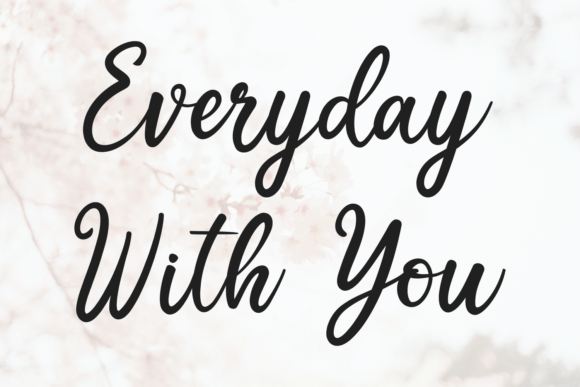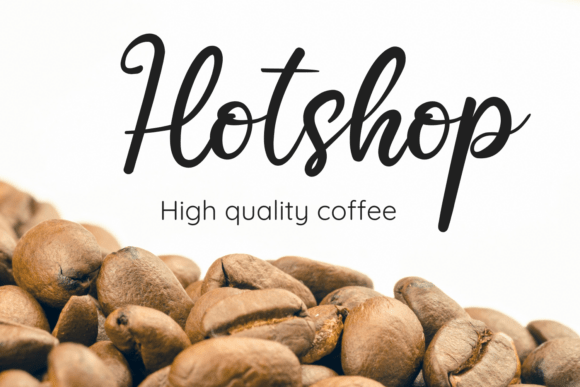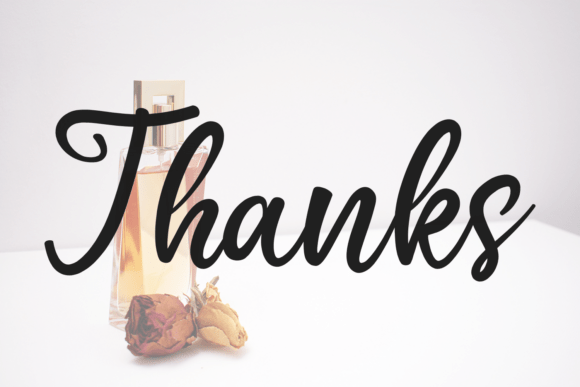
Introducing Avida Font: The Ultimate Modern Script Font for Elegant Designs
Are you looking for a font that exudes elegance, sophistication, and modern charm? Look no further than Avida, a beautifully crafted modern script font that is sure to elevate your design projects to new heights. With its smooth, flowing strokes and dynamic contrast between thick and thin lines, Avida is the perfect choice for designers and crafters who want to add a refined and luxurious feel to their work.
A Font Designed with Meticulous Attention to Detail
Avida is a font that has been designed with meticulous attention to detail, making it a true masterpiece of typographic design. The font features smooth, flowing strokes that are perfect for creating elegant and sophisticated designs. The dynamic contrast between thick and thin lines adds a level of depth and dimensionality to the font, making it perfect for a wide range of design applications.
Avida is a versatile font that is perfect for a wide range of design projects, including branding, packaging, product labels, wedding stationery, t-shirt designs, and high-end logo projects. Whether you’re working on a luxury brand identity or a creative design project, Avida is the perfect choice for creating designs that stand out with class and confidence.
Seamless Adaptation to Digital and Print Applications
One of the key benefits of Avida is its ability to adapt seamlessly to both digital and print applications. The font’s versatile letterforms make it perfect for use in a wide range of design projects, from business cards and brochures to websites and social media graphics. And with its clean, professional look, Avida is suitable for use in both formal and informal design projects.
Inspired by Modern Calligraphy
Avida is inspired by modern calligraphy, which gives it a unique and elegant feel. The font’s smooth, flowing strokes and dynamic contrast between thick and thin lines are reminiscent of traditional calligraphy, but with a modern twist. This makes Avida perfect for designers and crafters who want to add a touch of elegance and sophistication to their designs.
Clean, Professional Look
Despite its elegant and sophisticated feel, Avida has a clean, professional look that makes it suitable for use in a wide range of design projects. The font’s clean lines and simple shapes make it easy to read and understand, even at small sizes. This makes Avida perfect for use in designs where clarity and legibility are essential.
Elegant Curves and Ligatures
Avida’s elegant curves and thoughtfully designed ligatures enhance the aesthetic appeal of the font, making each word look custom-made. The font’s ligatures are designed to create a seamless flow between letters, which adds to the overall elegance and sophistication of the font.
Elevate Your Next Creative Project
Whether you’re a designer, crafter, or DIY enthusiast, Avida is the perfect choice for your next creative project. With its elegant and sophisticated feel, Avida is sure to elevate your designs to new heights. So why settle for a ordinary font when you can use Avida to create designs that stand out with class and confidence?
Key Features of Avida Font
- Beautifully crafted modern script font
- Smooth, flowing strokes and dynamic contrast between thick and thin lines
- Perfect for branding, packaging, product labels, wedding stationery, t-shirt designs, and high-end logo projects
- Versatile letterforms adapt seamlessly to both digital and print applications
- Inspired by modern calligraphy with a clean, professional look
- Elegant curves and thoughtfully designed ligatures